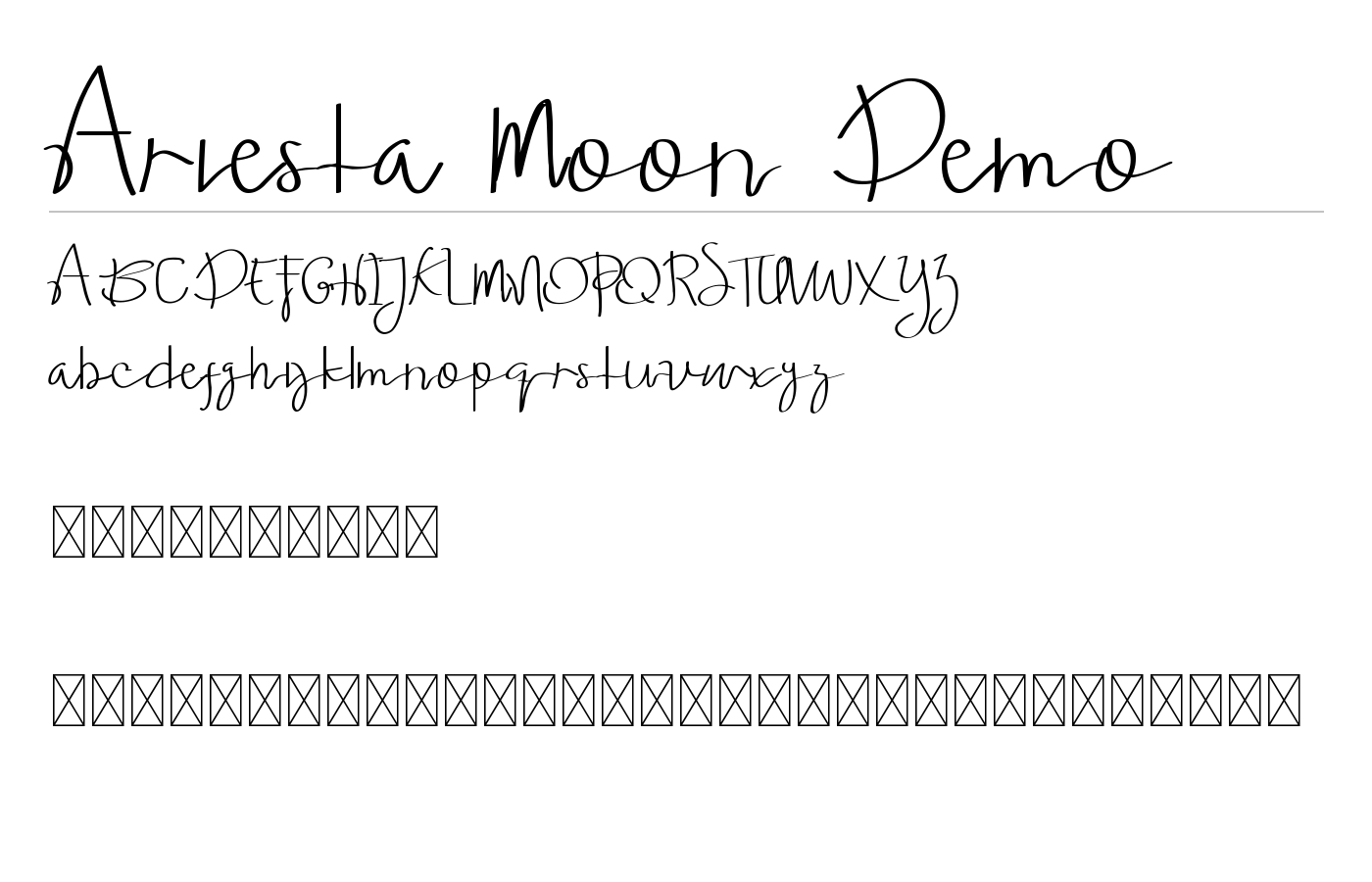
Ariesta Moon Demo is a delicate, handwritten script font with a whimsical and airy feel. Its thin, flowing strokes and playful letterforms create a light and personal touch, making it ideal for invitations, greeting cards, and creative branding where a gentle, artistic vibe is desired. This font works best in designs that benefit from an elegant yet casual handwritten style.
Ariesta Moon Demo Font
About Ariesta Moon Demo Font
| Font family | Ariesta Moon Demo Font |
| Designer | Saila Nurissalma |